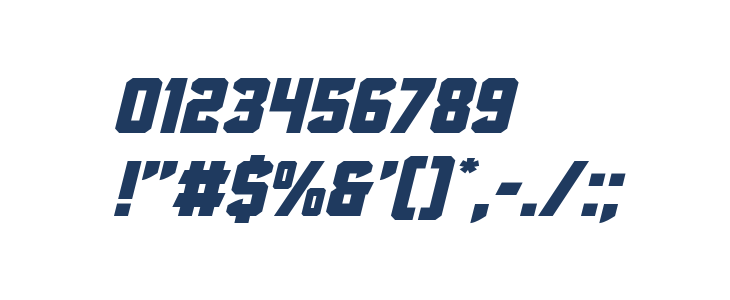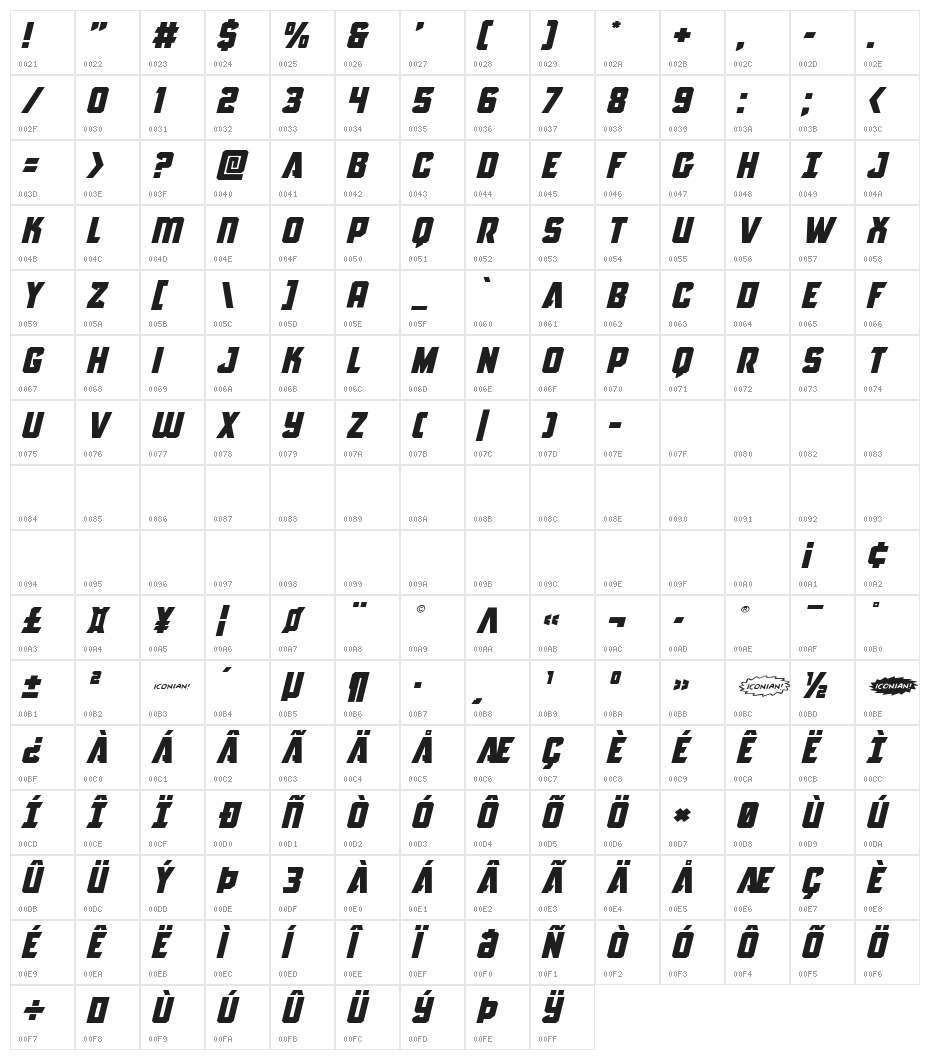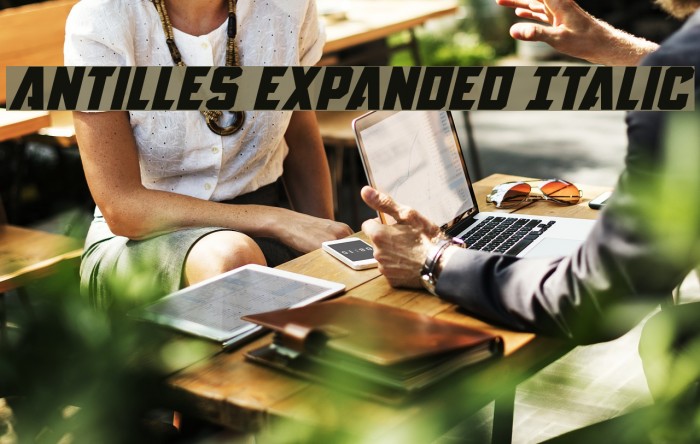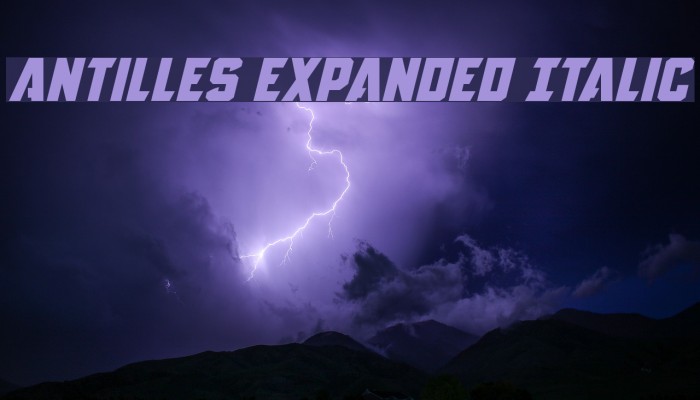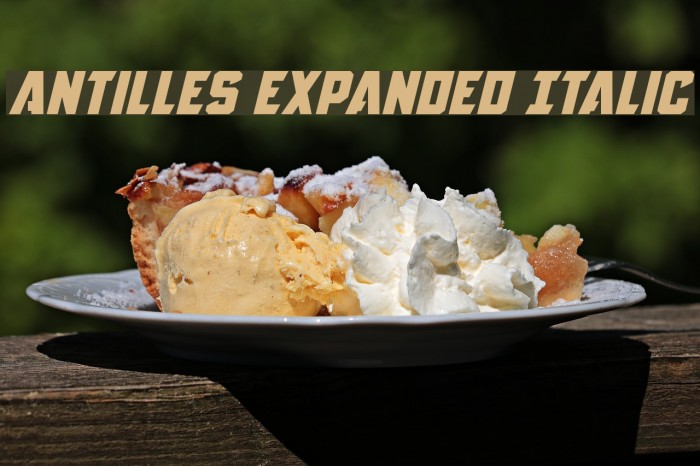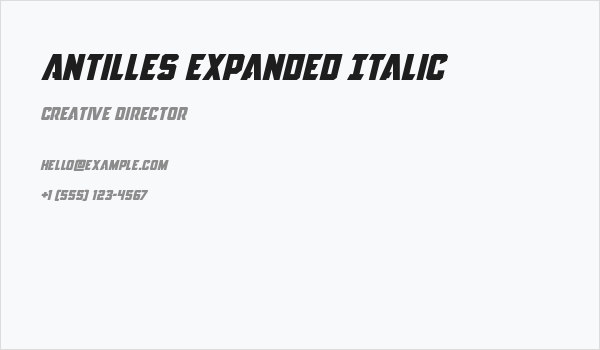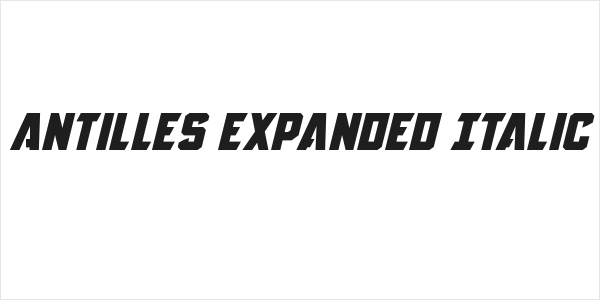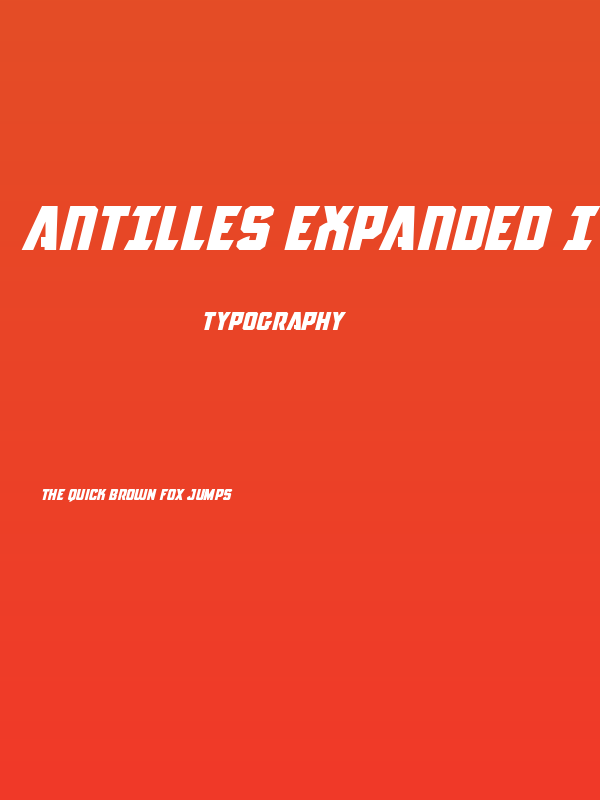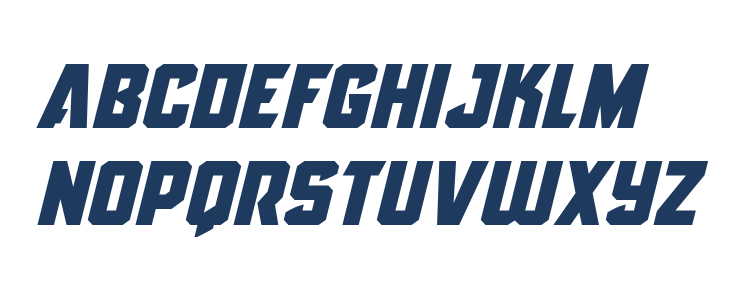
Antilles Expanded Italic Font
Antilles Expanded Italic Description
This font features a bold and dynamic style with an italic slant, giving it a sense of motion and energy. The characters are expanded, providing a wide and impactful appearance. The angular and sharp edges contribute to a modern and aggressive look, making it suitable for attention-grabbing designs. The uppercase and lowercase letters maintain a consistent style, ensuring readability while adding a unique flair. The numerals and special characters are designed to match the bold and expansive nature of the alphabet, ensuring a cohesive look across all text elements.
| Proposed Projects | Ideal for sports branding, action-themed posters, video game titles, and dynamic advertising campaigns. |